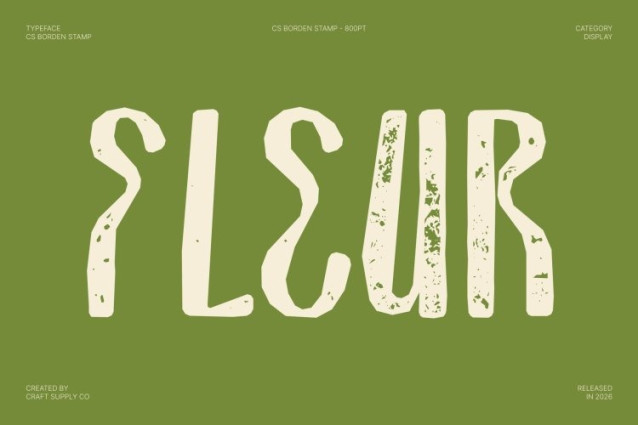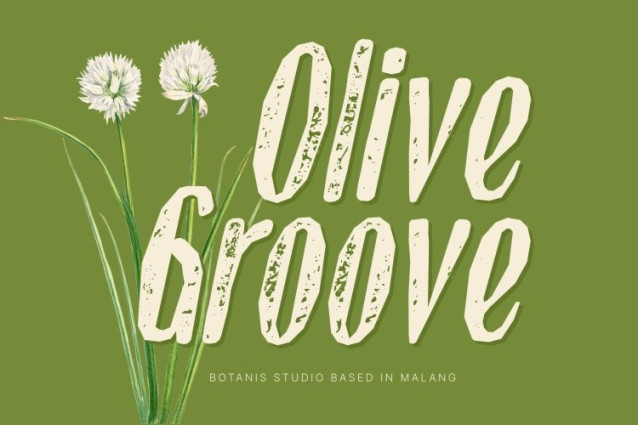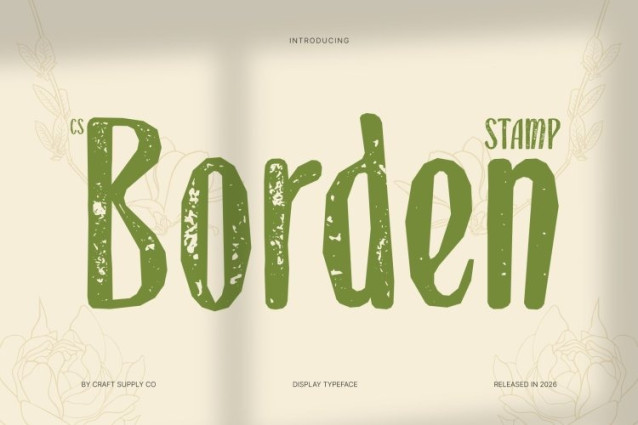
CS Borden Stamp Font
CS Borden Stamp Font This reimagines the sleek sophistication of the original with a subtle stamped texture that adds depth and character. Its tall, slim letterforms, refined contrast, and delicate detailing remain gracefully intact, now enhanced with gentle ink variations and softly distressed edges. This textured finish introduces a tactile charm while preserving its luxurious and modern appeal.
Smooth Curves with Vintage Imprint Character
The smooth curves and precise proportions continue to express contemporary elegance, now paired with a lightly weathered effect that evokes artisanal printing techniques. The stamped texture softens the pristine structure just enough to create warmth and personality, balancing modern minimalism with a touch of timeless authenticity.
Luxury Aesthetic with Artistic Depth
While maintaining its polished and upscale presence, offers added visual richness through its textured detailing. This subtle imperfection brings dimension and uniqueness, making each composition feel exclusive, expressive, and thoughtfully crafted perfect for designs that aim to feel both premium and distinctive.
Perfect for High-End and Statement Designs
Ideal for luxury branding, fashion editorials, wedding invitations, premium packaging, and elegant promotional materials, elevates both digital and print projects. Its fusion of refined structure and stamped texture delivers a sophisticated visual experience that feels timeless, graceful, and beautifully elevated.